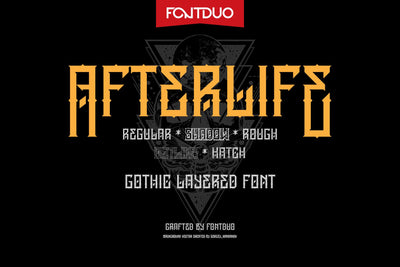
Afterlife Layer Blackletter Font
Afterlife is a cool and unique blackletter layered font family with five different styles. Add it confidently to your projects and you will love the results!